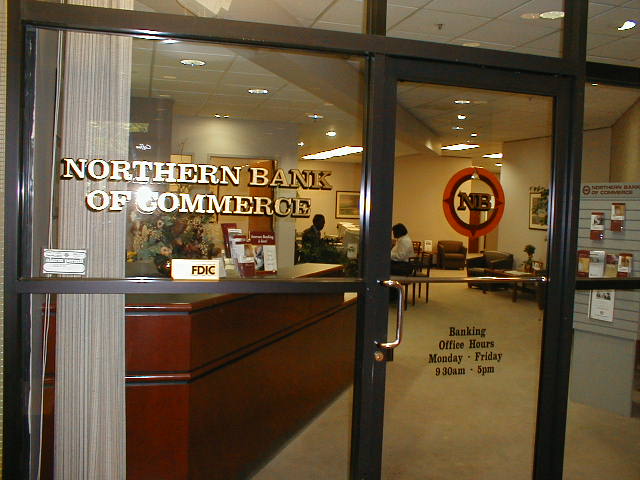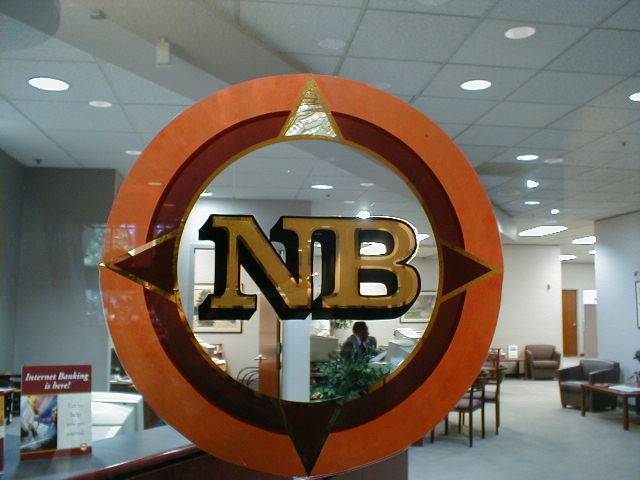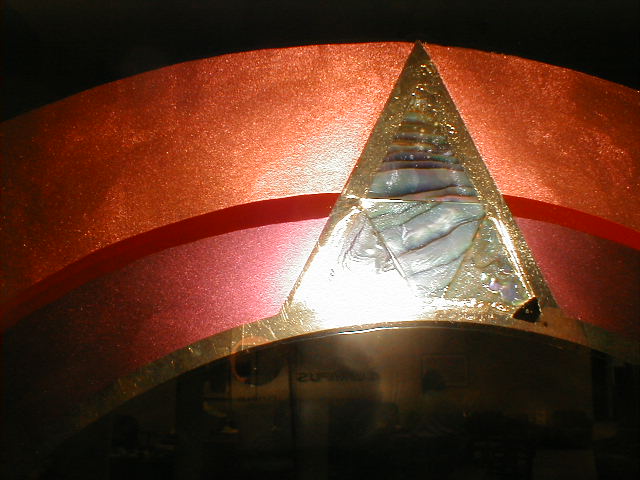
I am new to the forum. Also I am fairly new to sign painting on glass as well. I am a textile Airbrush Artist for 20 years now and am expanding my interests into sign painting and more specifically on glass.
My question is- I am working on a glass painting job for a local coffee shop. I want to incorporate gilding with silver leaf but have read that it can tarnish with contact to oil based paint. So after I gild the silver leaf do I back the leaf with a water-based paint? And then can I back it with an oil based varnish such as 1 Shot? I am using 1 Shot lettering enamel for the line work.
Kent Smith's book of Gold Leaf Techniques has been an invaluable source of information and was highly recommended.
I'm attaching my first sign painting gig I reverse painted with 1-Shot and imitation gold leaf engine turned.
That looks really good. Don't use silver leaf. Use 12k gold leaf. It is 1/2 gold and 1/2 silver and
won't tarnish. Back it up with back up enamel. You can get it here http://letterheadsignsupply.com/glassgi ... amel-paint
That looks really good. Don't use silver leaf. Use 12k gold leaf. It is 1/2 gold and 1/2 silver and
won't tarnish. Back it up with back up enamel. You can get it here http://letterheadsignsupply.com/glassgi ... amel-paint
Awesome. I was wondering if that was a better option. I will use the 12K leaf instead.
Just a quick addition. Use a back-up like Decor for this....also available at Letterheads Supply. One shot is really not the best choice for use on glass period. Silver is a brighter silver in appearance and used as you describe the earlier mentioned concerns should not be a problem....after all white gold is still mostly silver. The colour is warmer. Also...those are amazing "first time out" photos.
Yeah it seems I am hearing about issues with 1 Shot on glass these days? Are there more favorable enamels for hand lettering on glass?
When using silver leaf, I like to back it up with asphaltum varnish.
However, asphaltum is not strong enough to remove excess leaf
when water gilded. I too, would suggest the 12K leaf backed with
the enamal screen ink, rather than OneShot.
However, asphaltum is not strong enough to remove excess leaf
when water gilded. I too, would suggest the 12K leaf backed with
the enamal screen ink, rather than OneShot.
Hot Stuff! You're sure this is your first glass job?
Watergild is of course in it's own class, and you're gonna have fun with it - 23K or 12k. But don't forget the possibilities of the powderpuff or 'snapper special' technique. Apply a clear varnish (or goldsize), let it tack up a bit, then go over it with aluminum bronze powder, using a ladies powderpuff or a foam brush. NOT TOO MUCH. Lots of people have quit this technique after making a big blowing mess by using lots of powder - a little at a time, gently rubbed into the varnish. You can get quite a good shine if the size is setting up, or more matte if its wetter.
So cool- yes that definitely makes me think more about the color choices and some other options. The wolves just have a little white and then silver.